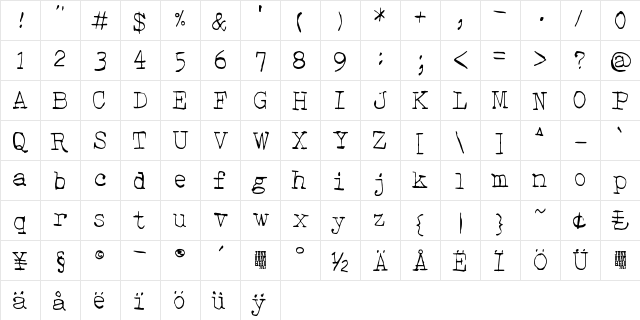
Hehku Regular
Design Context for Hehku Typeface
Hehku takes a measured approach to typography — its balanced proportions and neutral character make it a reliable workhorse for both digital and print work.